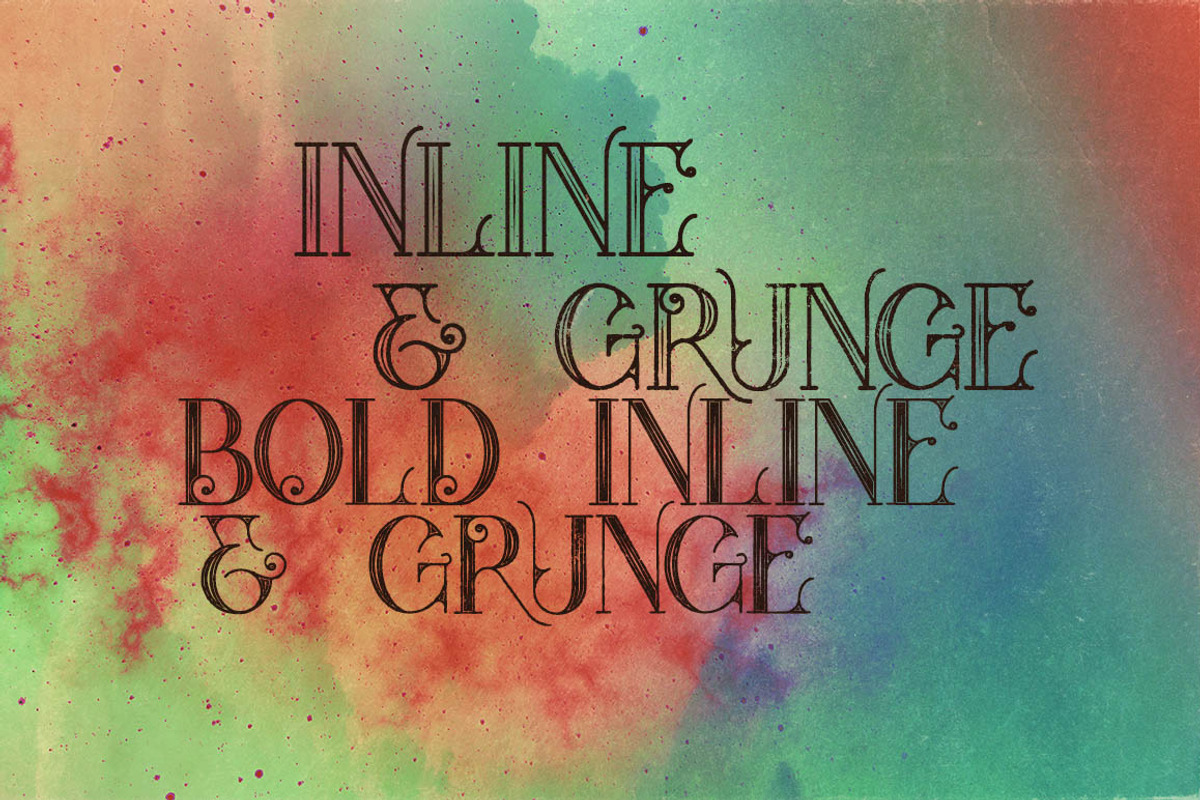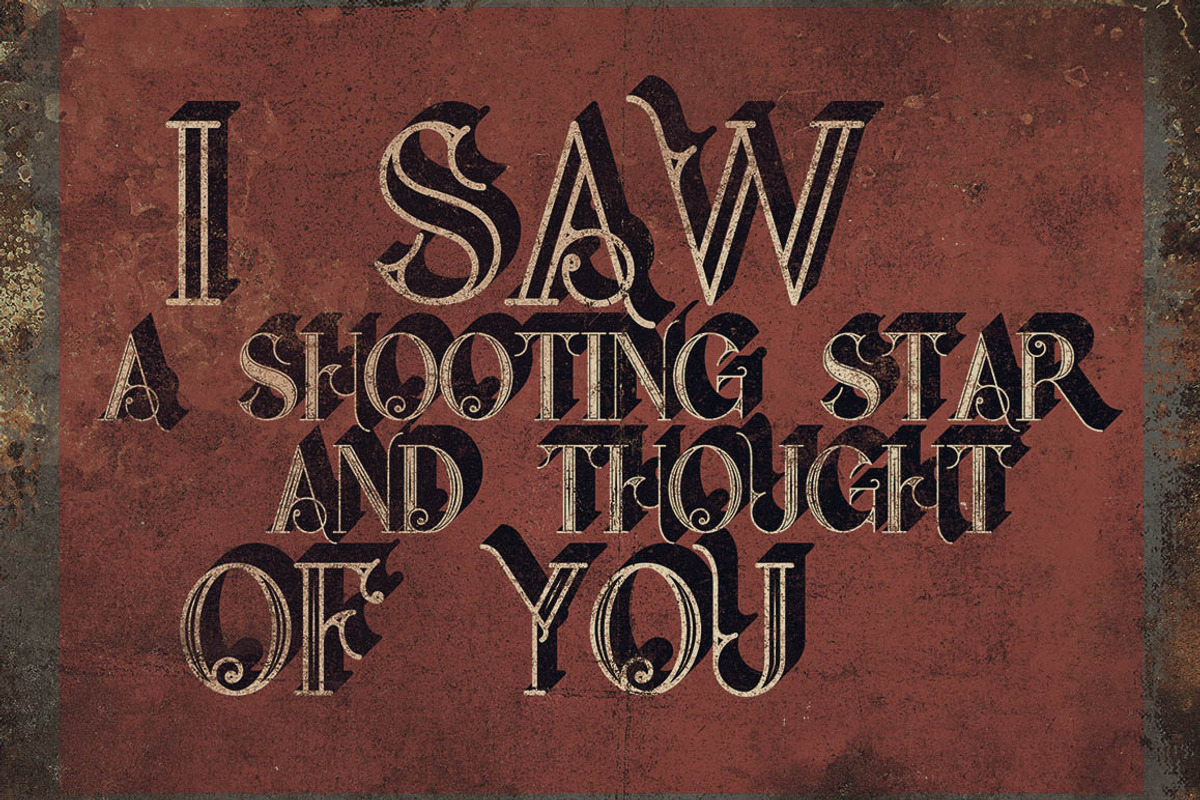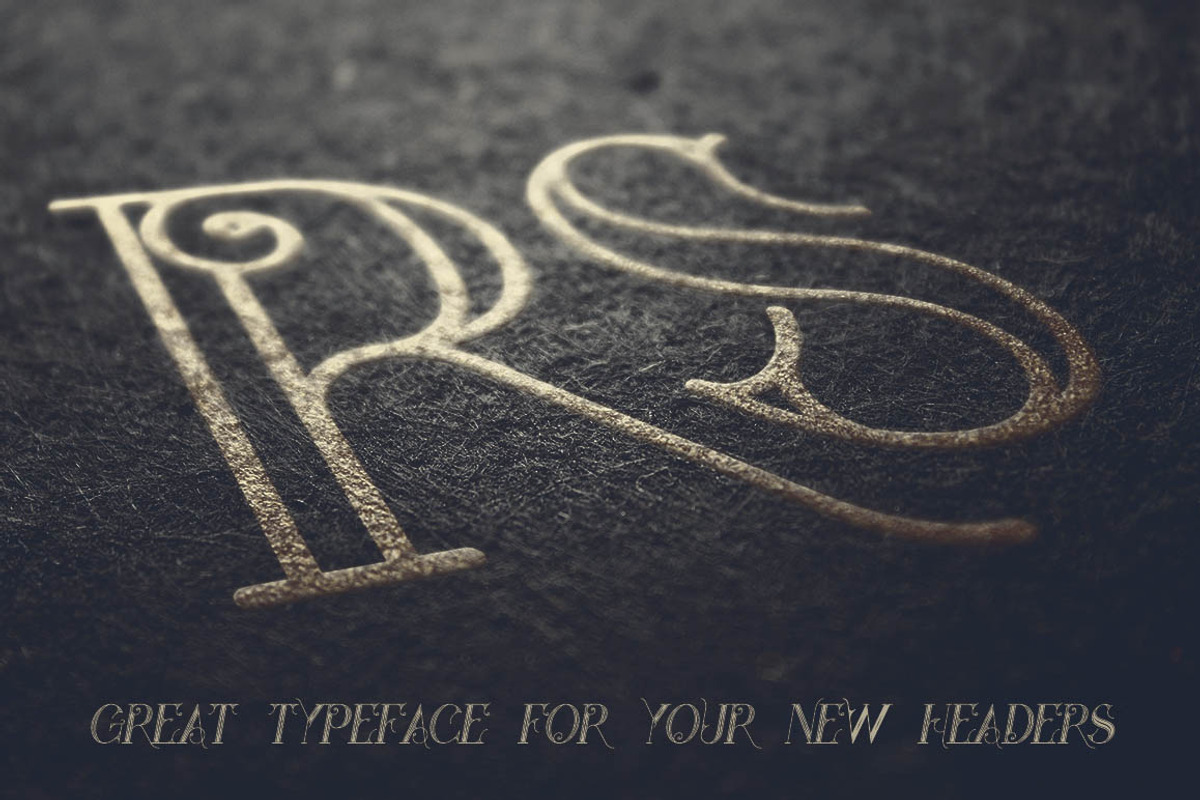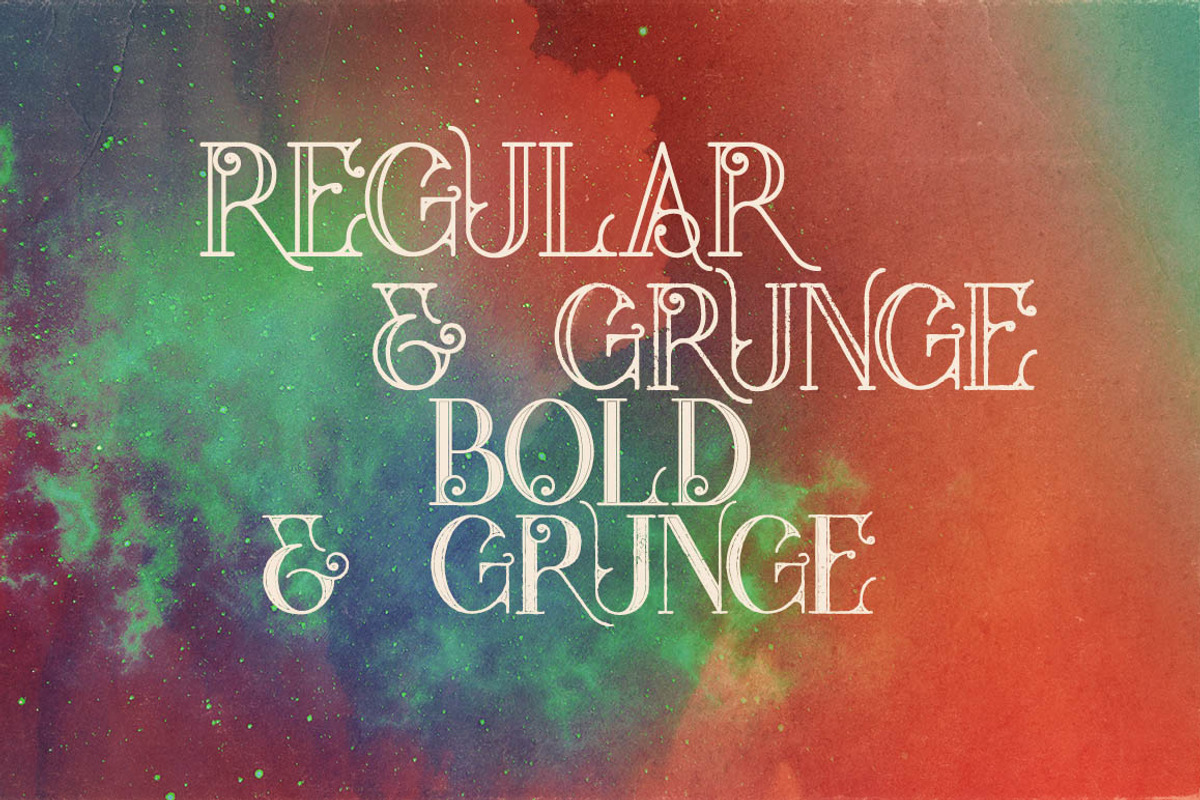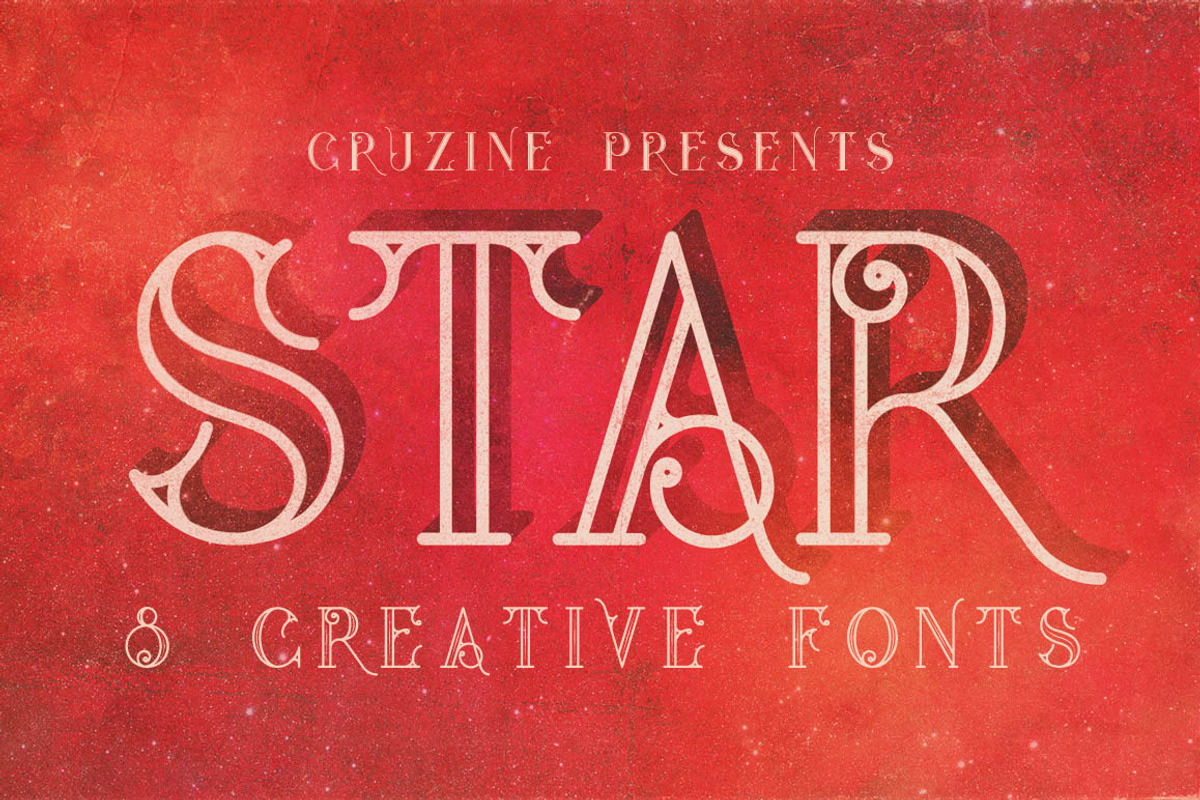
Star Typeface
Star Typeface by Cruzine is a font selected for branding, posters, packaging, typography.
Why Star Typeface is worth a look
Star Typeface by Cruzine fits naturally into Branding, posters, packaging, typography.